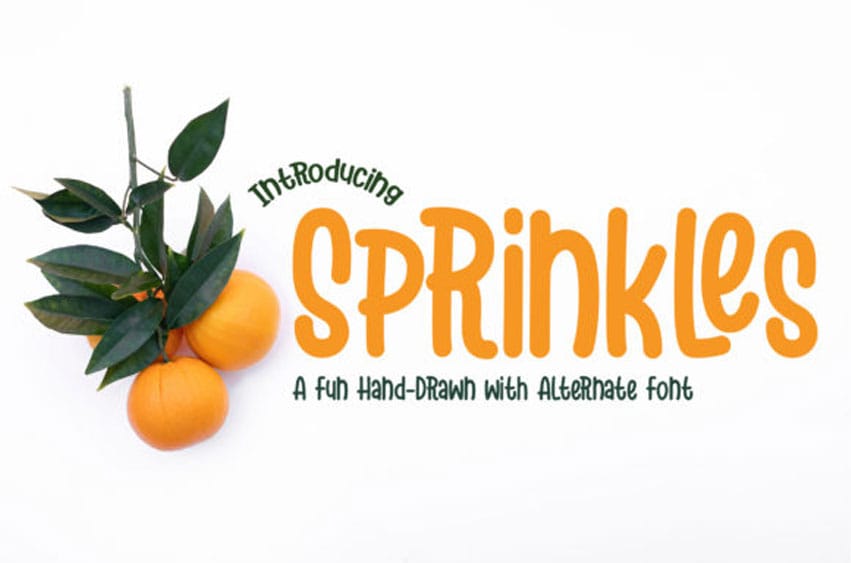
Sprinkles Font is a hand-drawn and chunky display font. It’s a great font for fashion, apparel projects, signature, album cover, logo, branding, magazine, social media, & advertisements, but also works great for other projects.